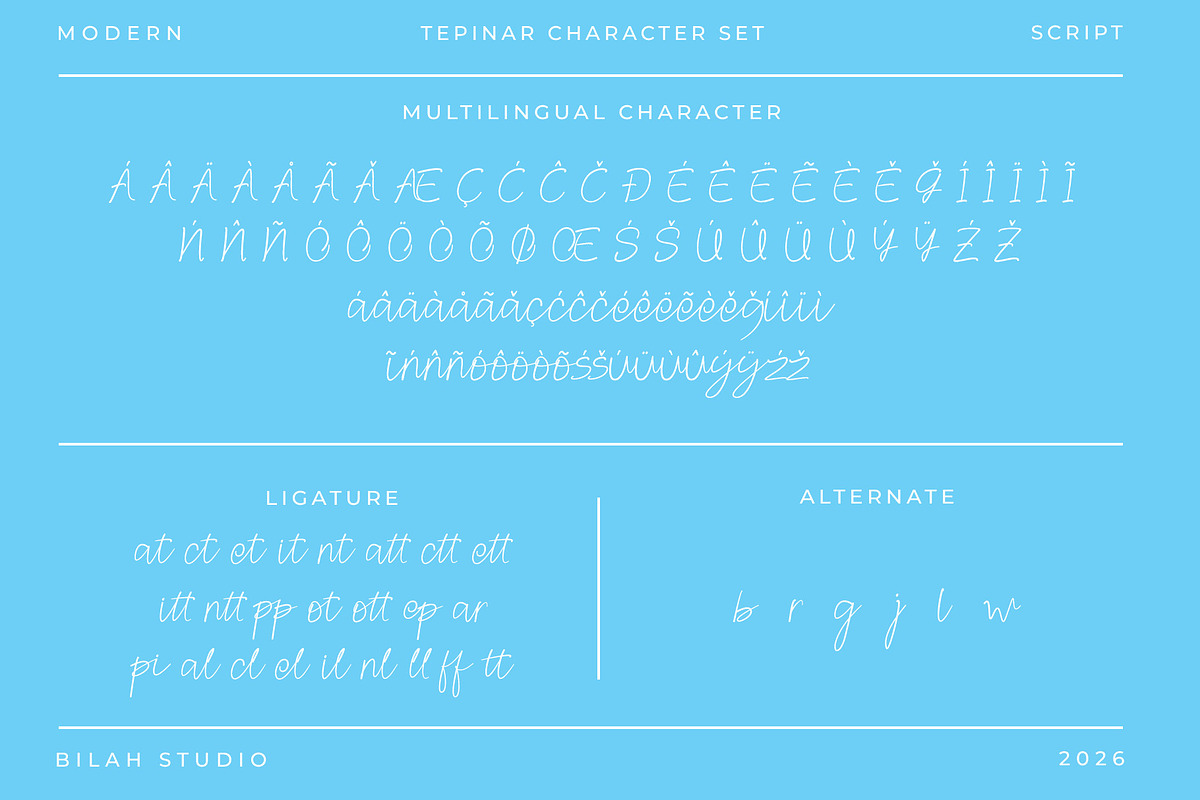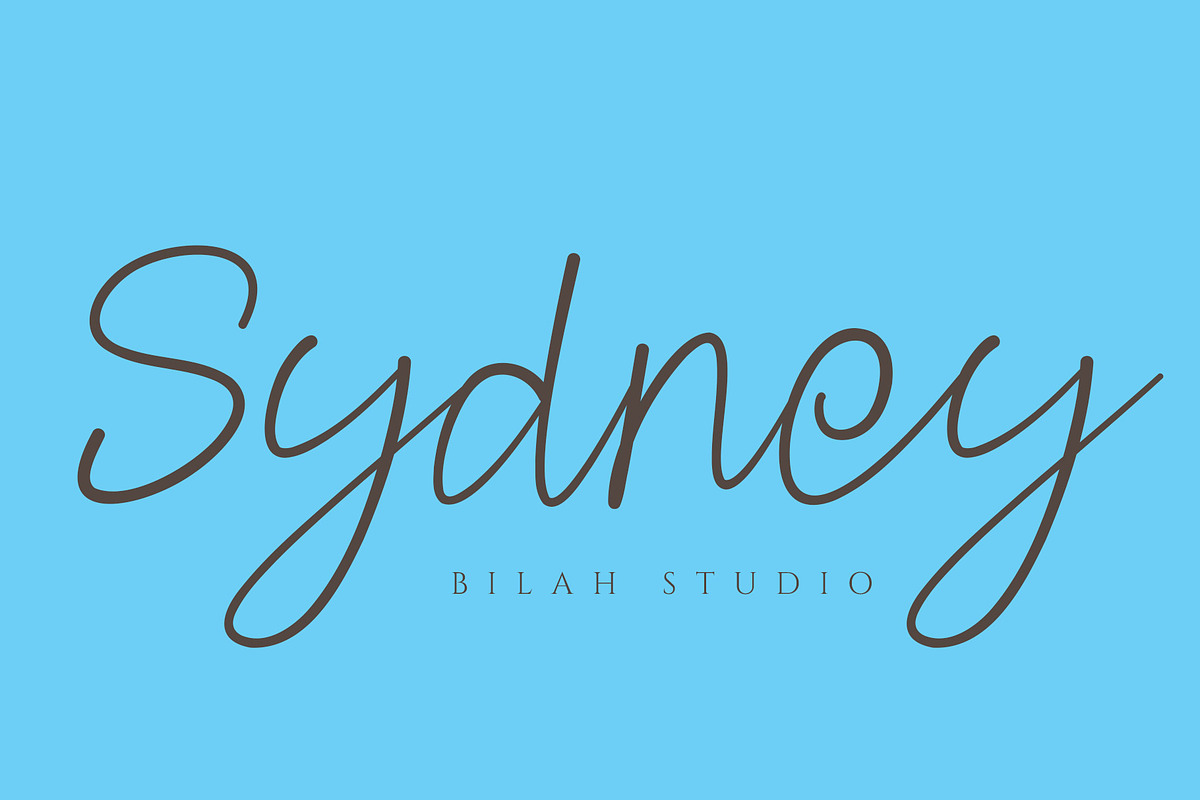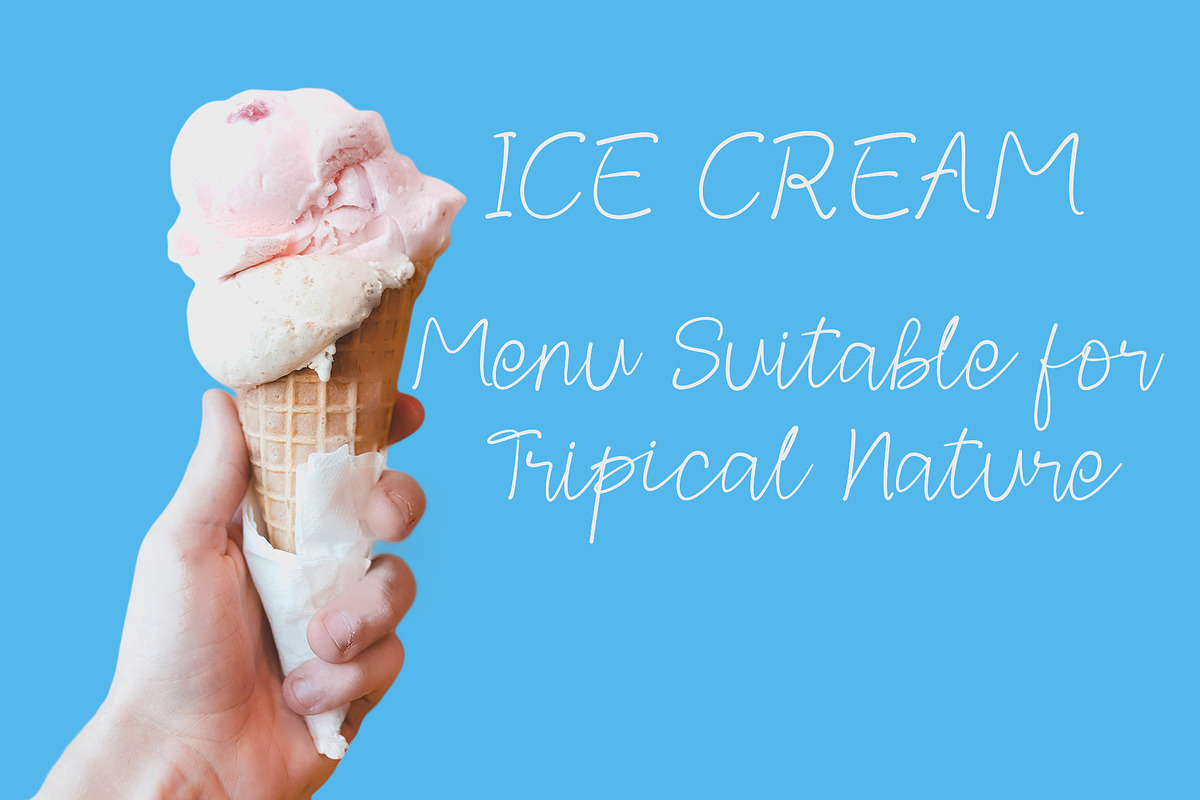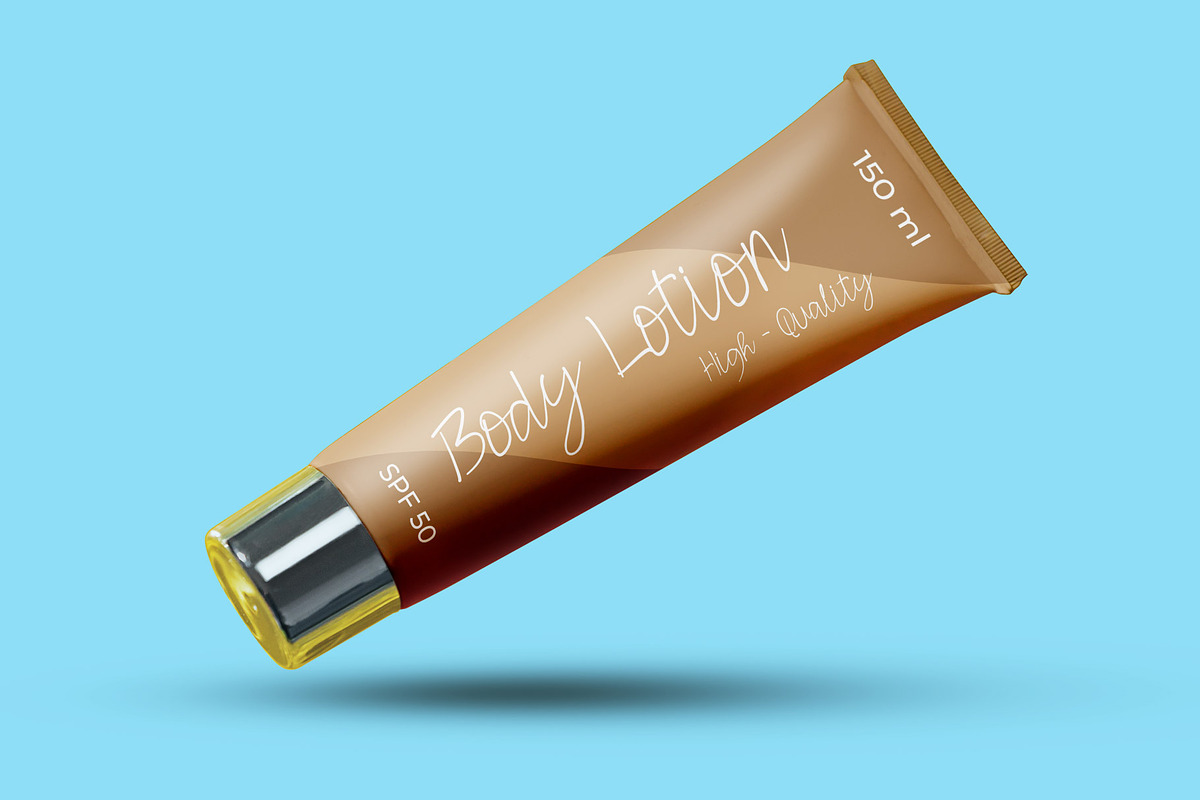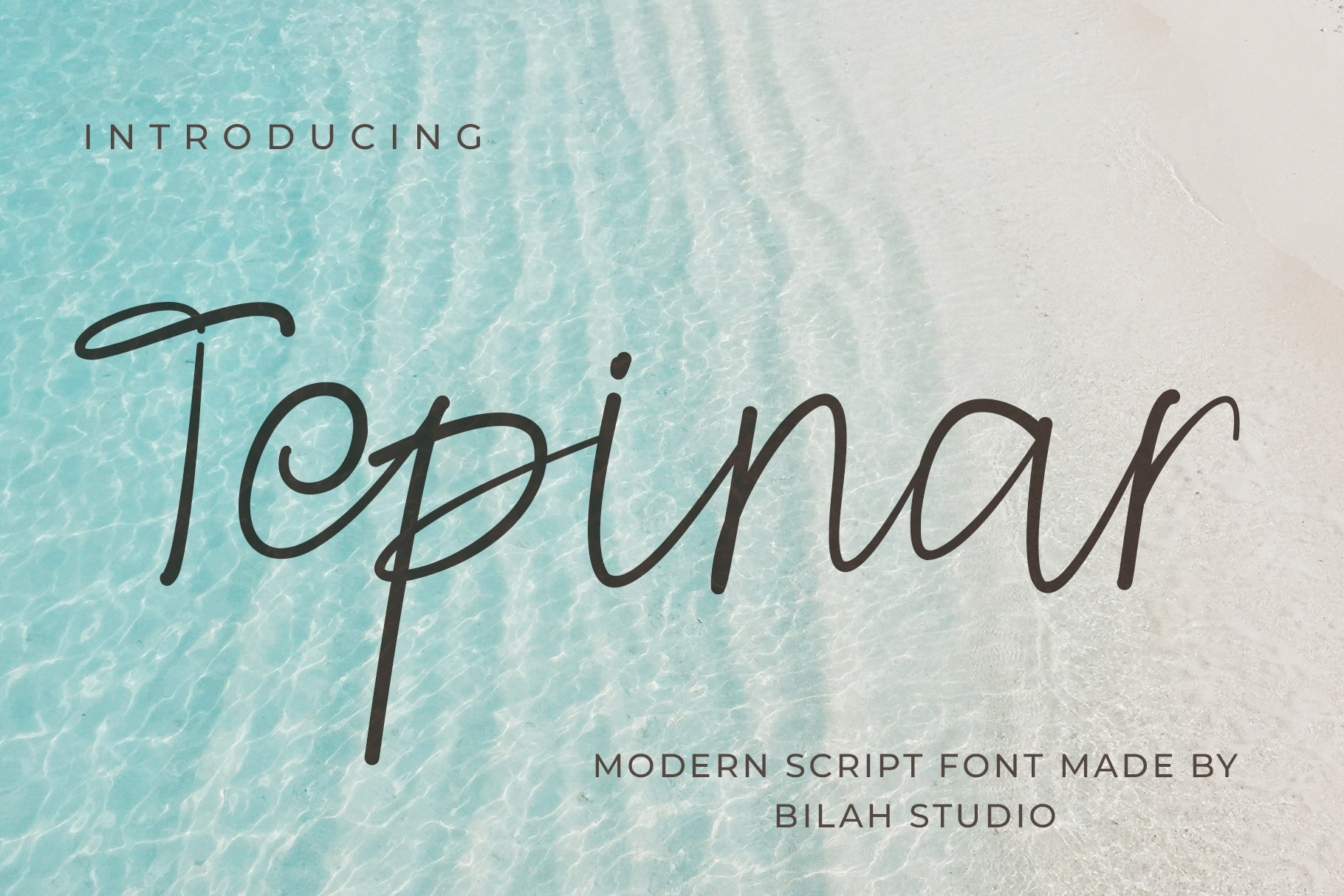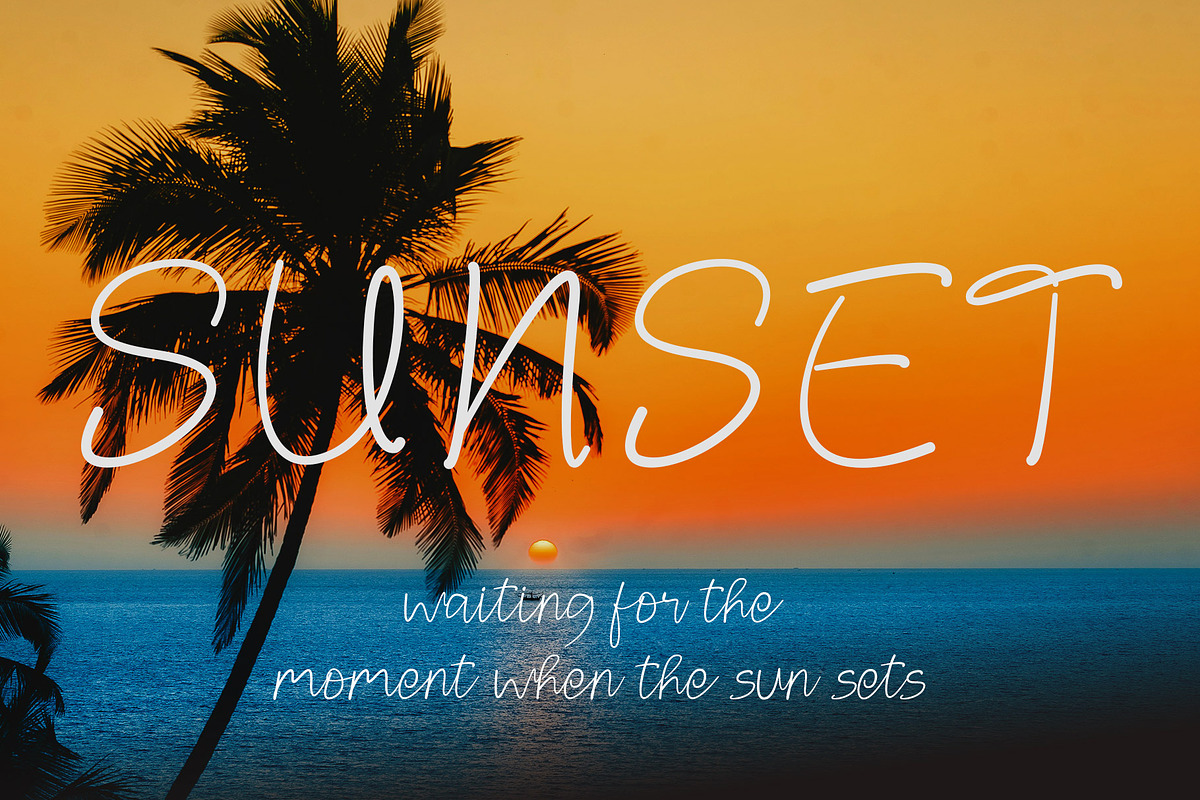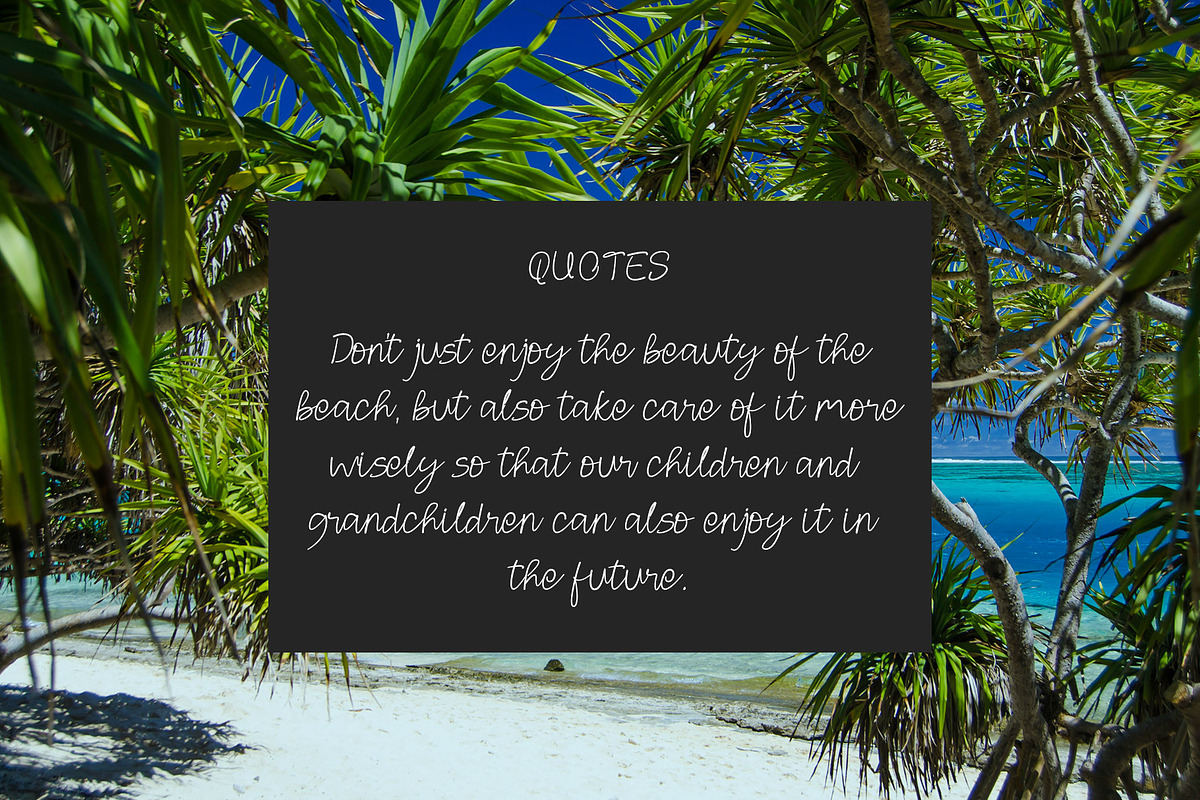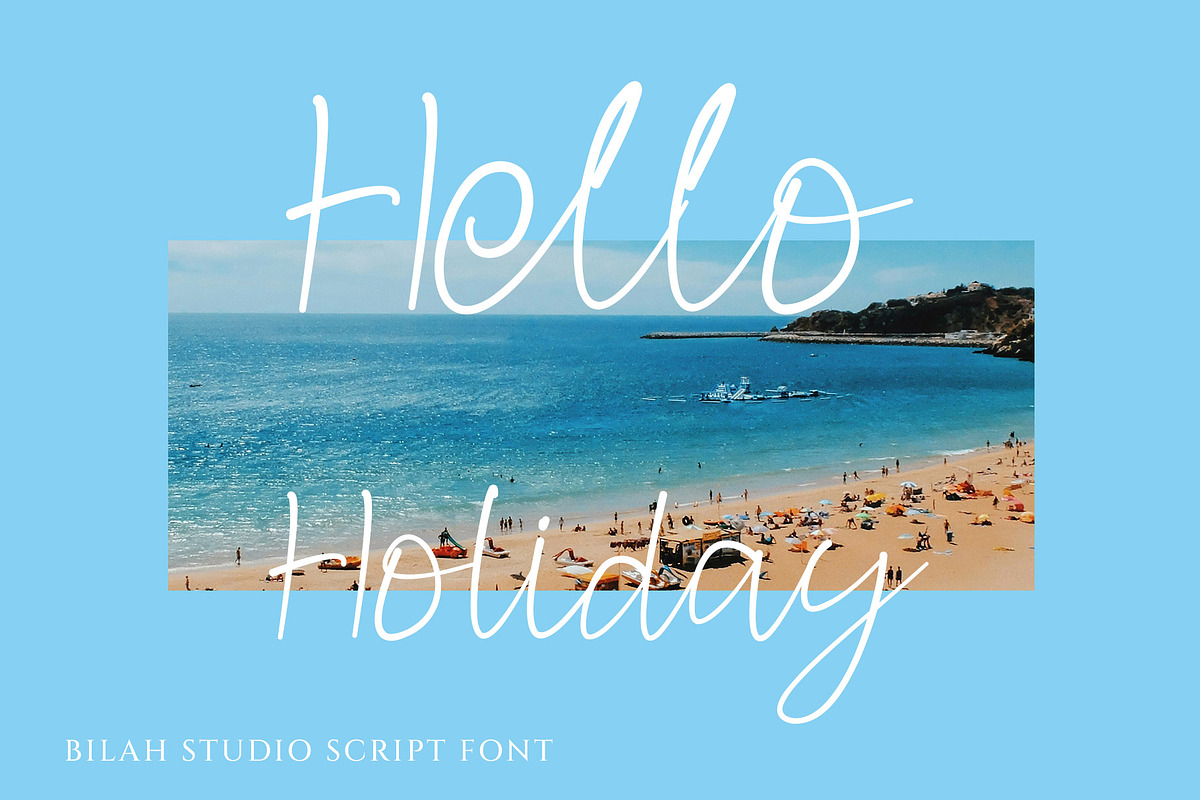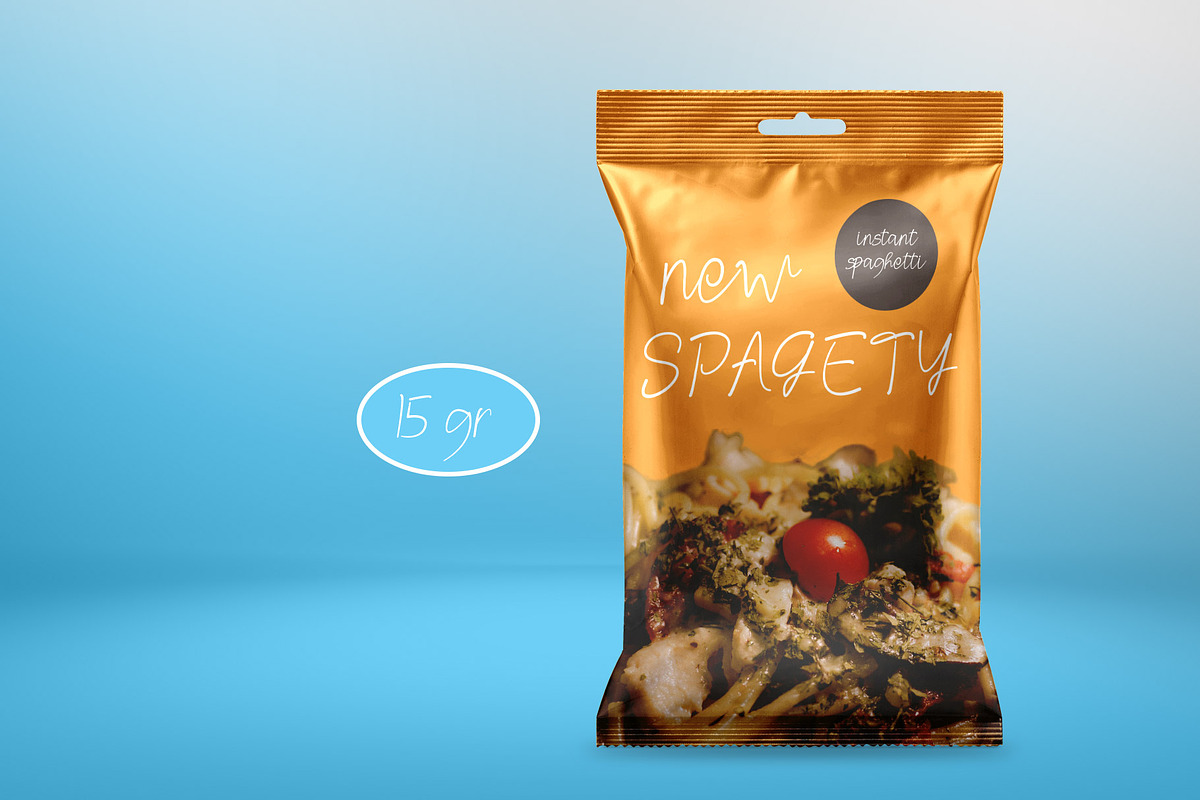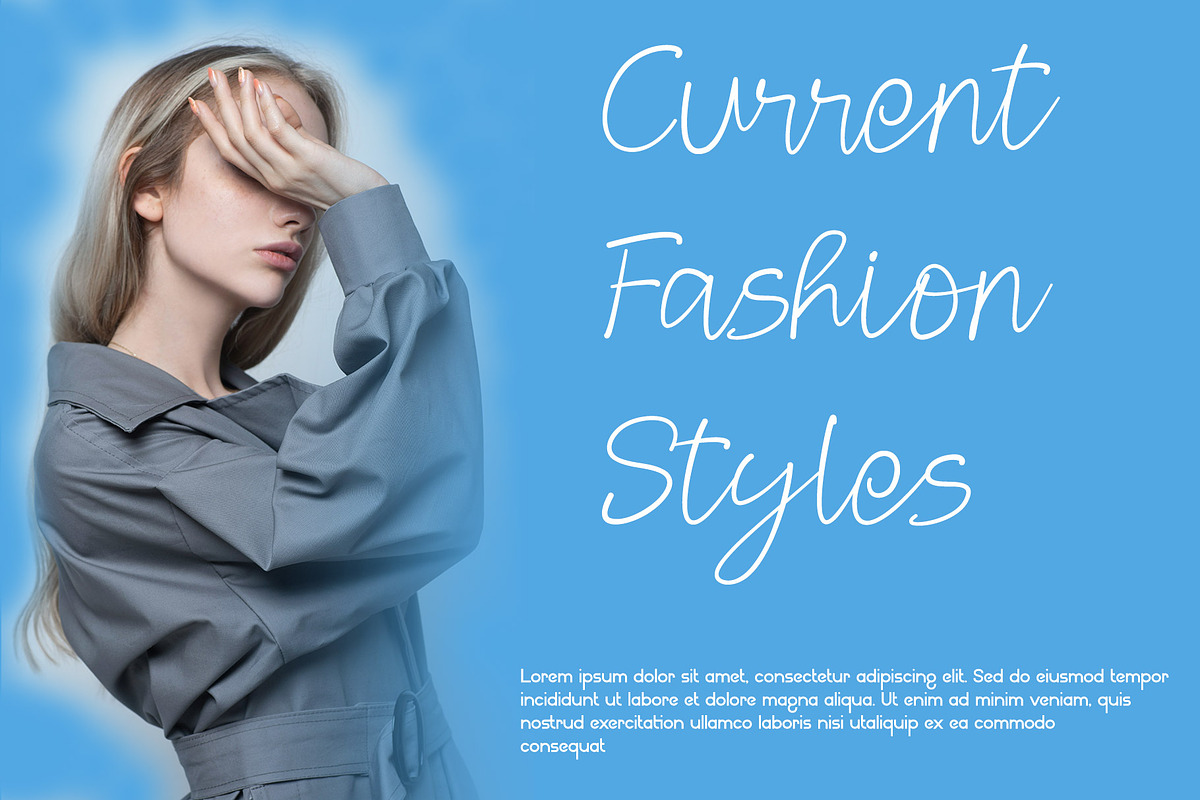
Tepinar Script Font
Hello ladies and gentlemen! We proudly present the script font, "Tepinar." This font has an elegant feel that is quite simple and professional-looking. We strive to ensure that this font looks elegant, simple, premium, modern, easy to read, stylish, feminine, girly, attractive, and easy to use. Tepinar is a great choice for watermarks on photography, signature logo designs, quotes, album covers, magazines, business cards, and many other design projects. Tepinar can make your work look its best.